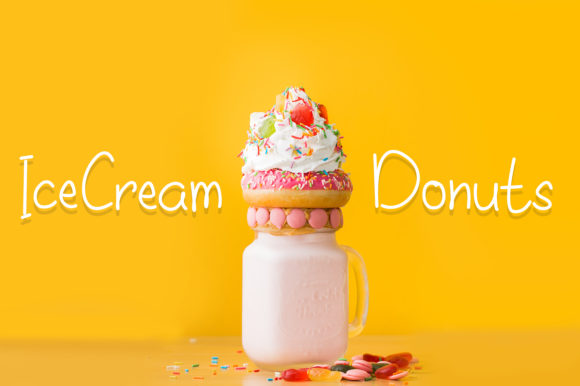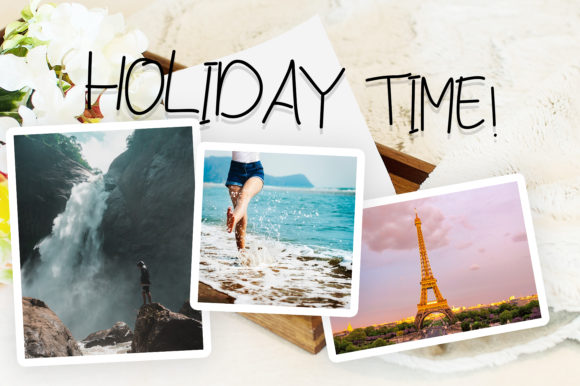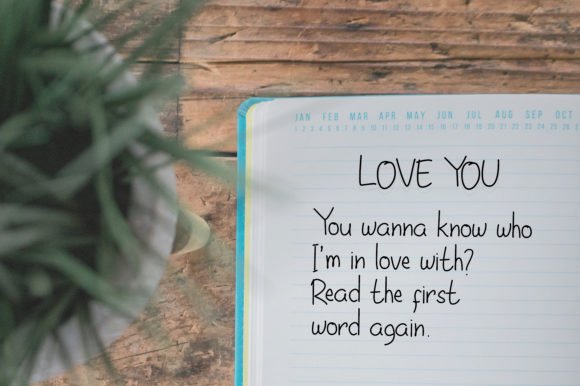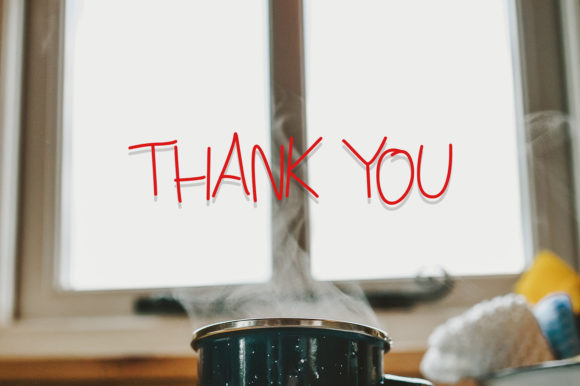
HomeScript FontsRinly Font Script Fonts Rinly Font FacebookXPinterestWhatsApp Rinly Font Poster 2 Rinly Font Poster 3 Rinly Font Poster 4 Rinly Font Poster 5 About Rinly Font Rinly is a sweet and cool script with a casual look. DOWNLOAD ON CREATIVE FABRICAThis font is sold and delivered by Creative Fabrica. Font Canyon may earn a commission if you buy through this link. People also explored Butterfly Script Font Axaxax Bold Astonish Well Cake Font Amsterdam Font Yohana Font Walgamble Font Bus Stop Worn Font Sophan Font 320 0 TagsRinly Font Previous articleRashida FontNext articleIsyana Script Font LEAVE A REPLY Cancel reply Comment: Please enter your comment! Name:* Please enter your name here Email:* You have entered an incorrect email address! Please enter your email address here Website: Save my name, email, and website in this browser for the next time I comment. Personal Use Free Vembazax Rm Personal Use Free Read more about this font Dear Monita Personal Use Free Read more about this font Ashay Personal Use Free Read more about this font Amelline Personal Use Free Read more about this font BLOG How to Cut Any Font on Cricut: Convert a Font to SVG (Free) Turn any font into a clean SVG so it cuts crisp on Cricut - a quick 3-step workflow using a free font-to-SVG tool. Fonts That Capture the Spirit of New York City Exploring Font Trends Modern Sans-Serif Fonts That Brands Love in 2025